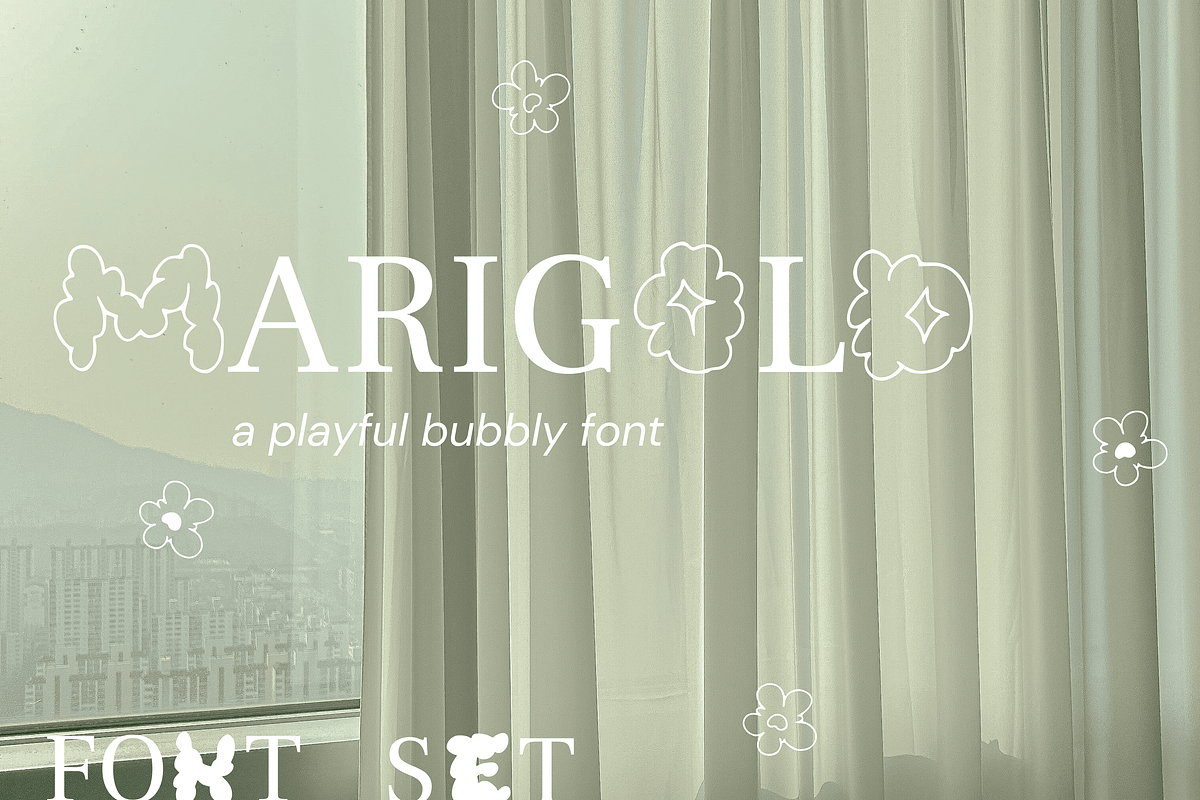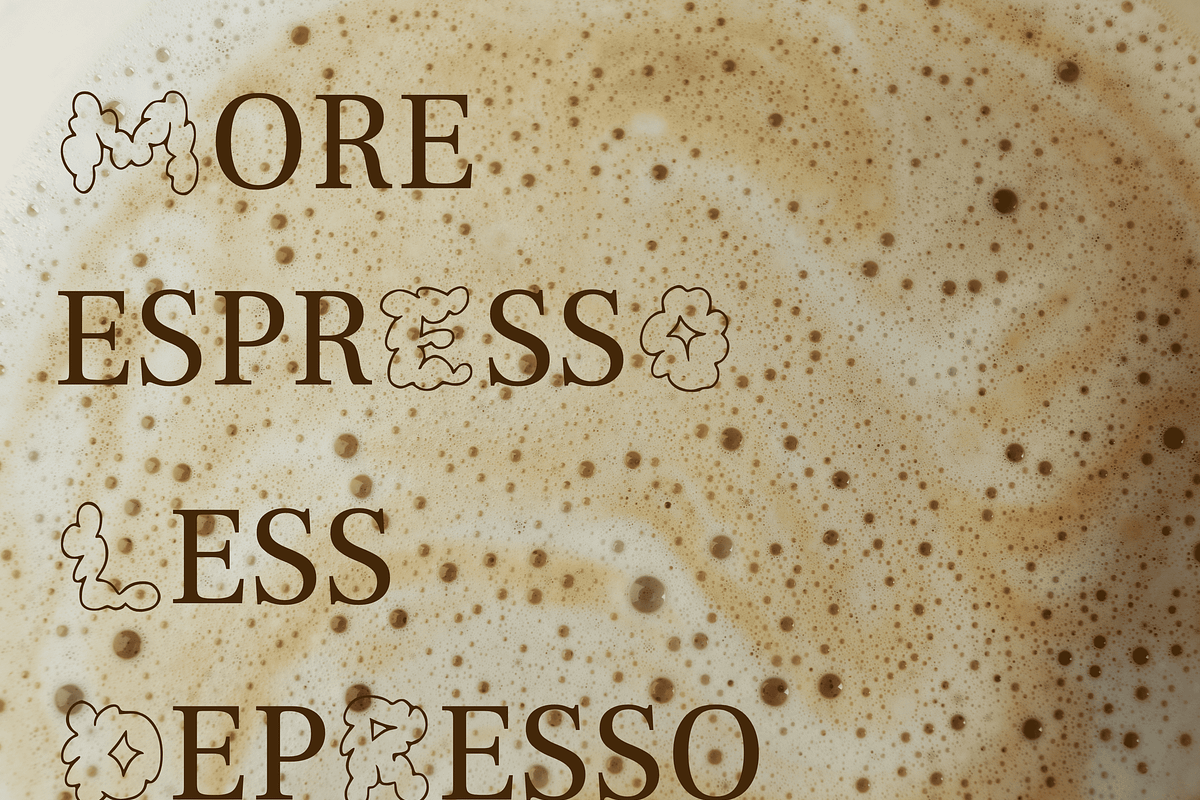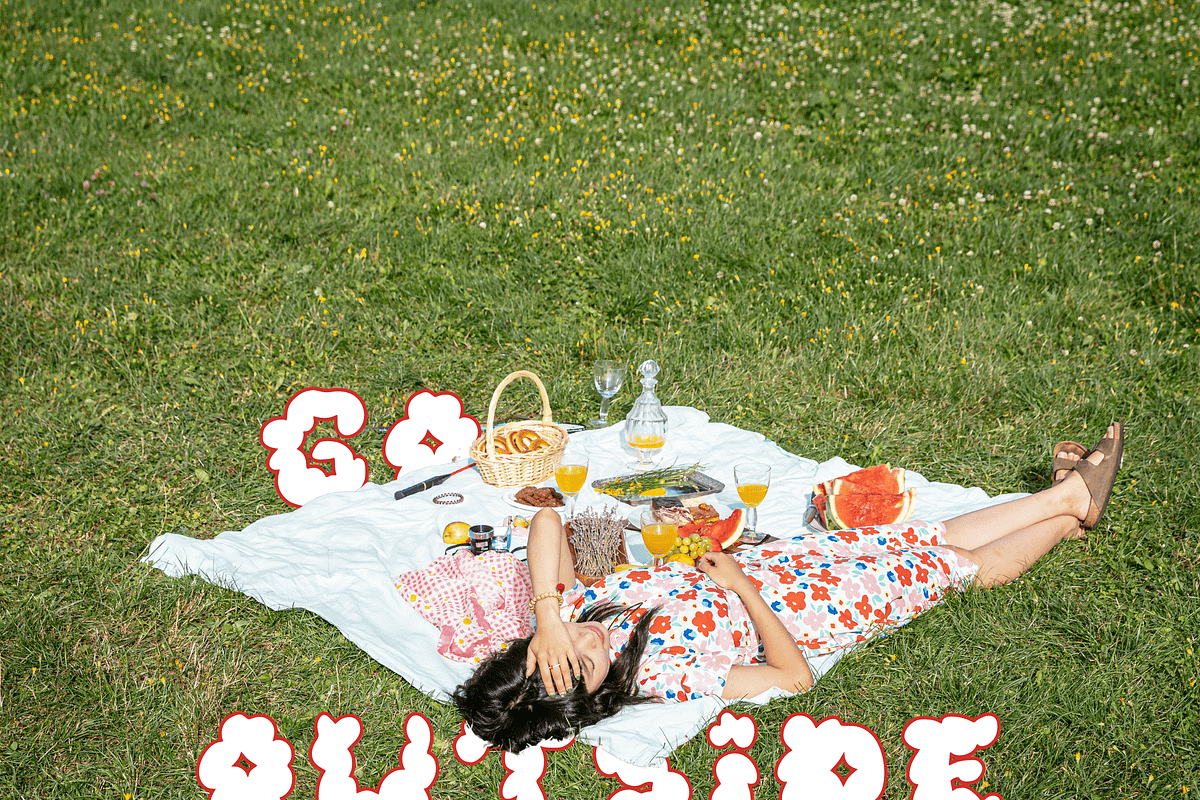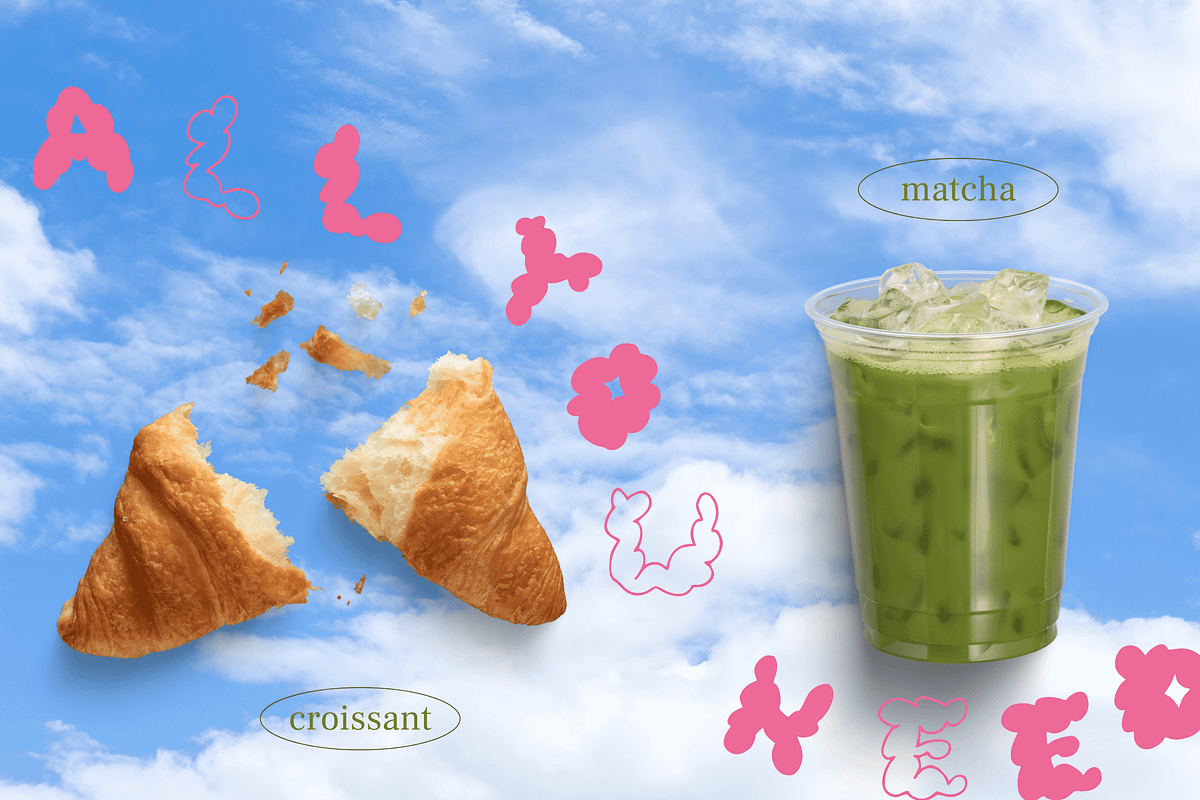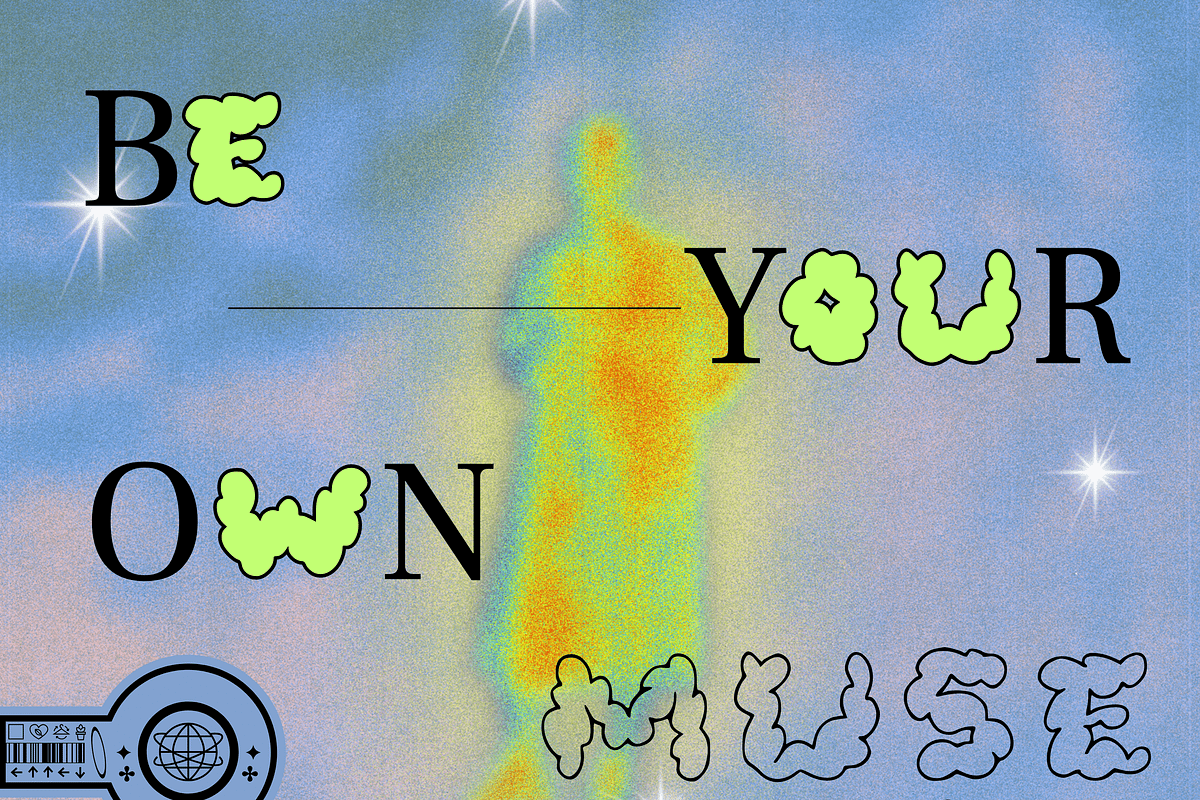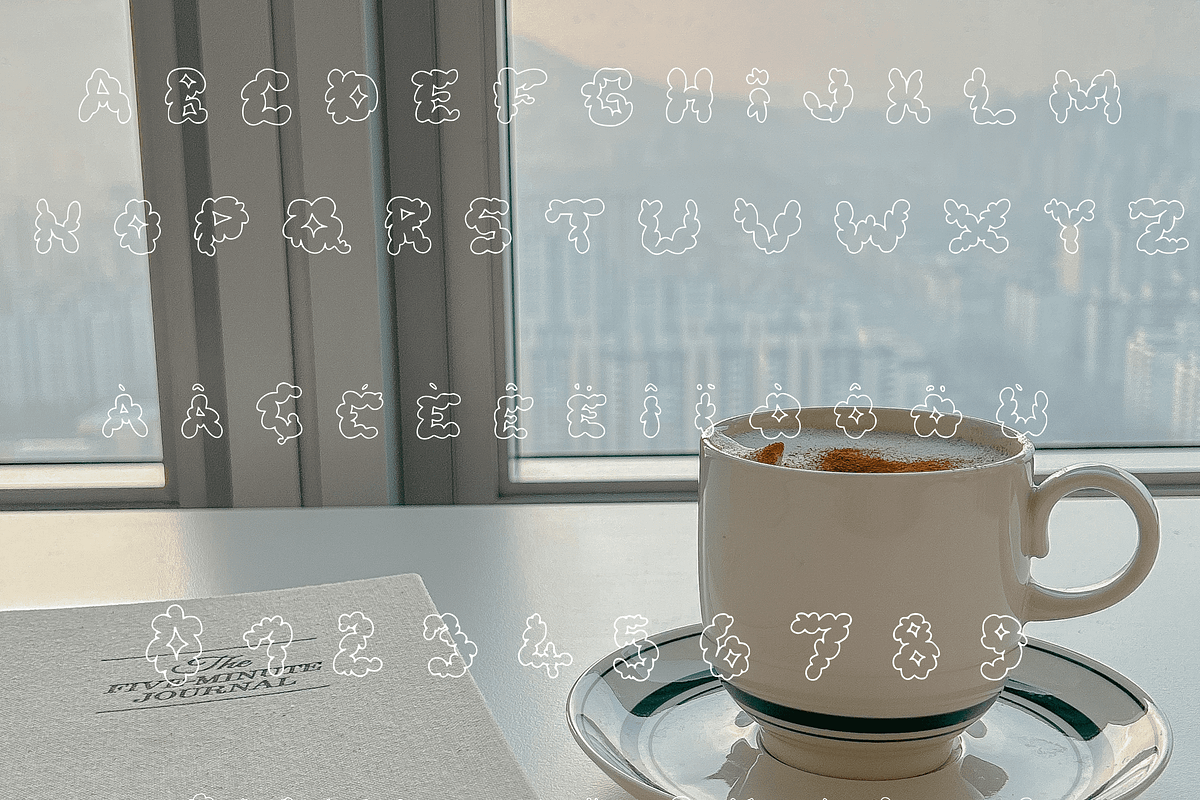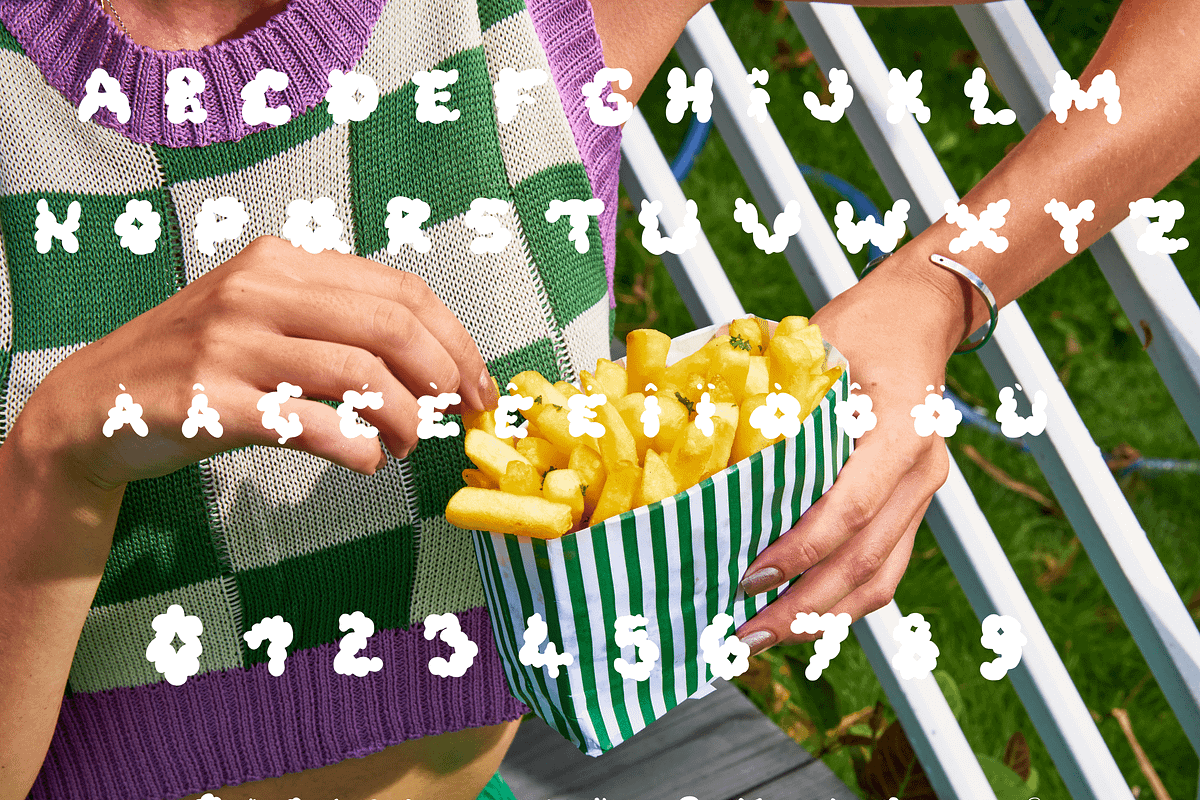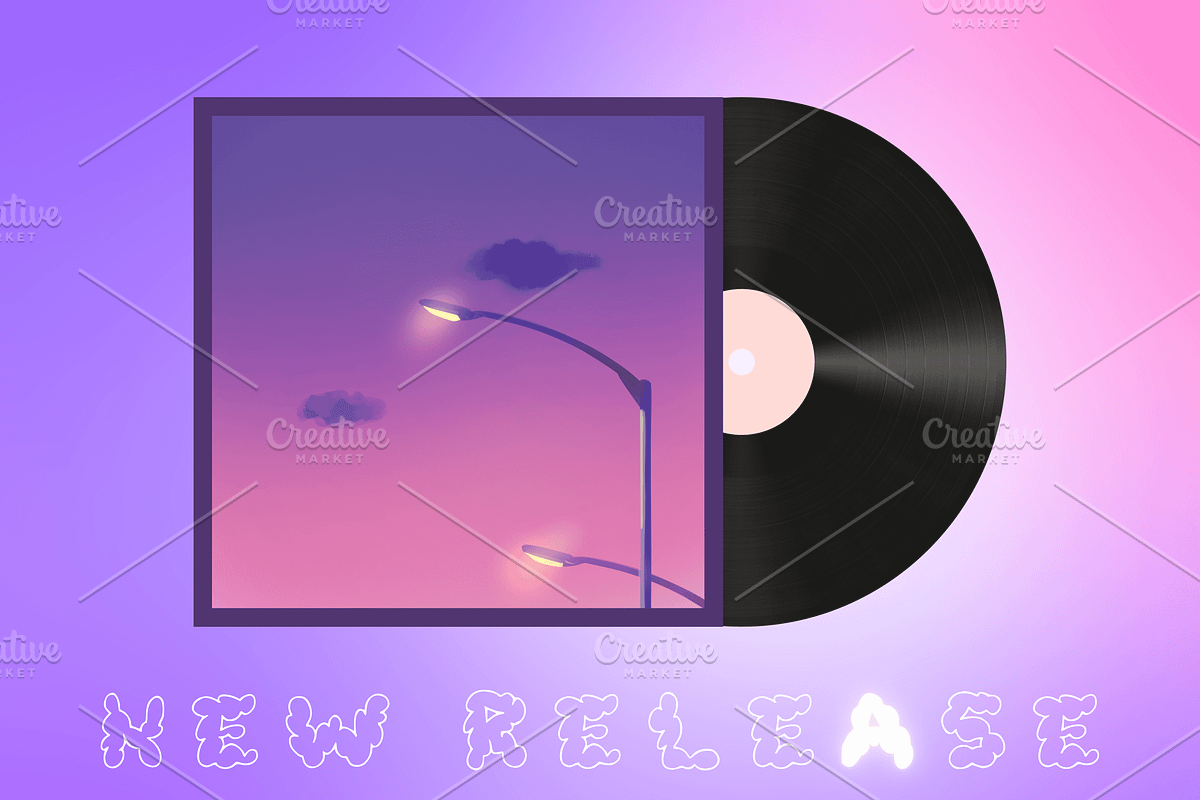
Marigold - a playful bubbly font set
Marigold is a playful and bubbly font designed in two versions : solid and outlines, to fit any design. Mix and match this versatile font to add cheerfulness and dynamism to your projects.
✿ Marigold Outline : 26 letters, accented characters, numbers, symbols & punctuation.
✿ Marigold Solid : 26 letters, accented characters, numbers, symbols & punctuation.